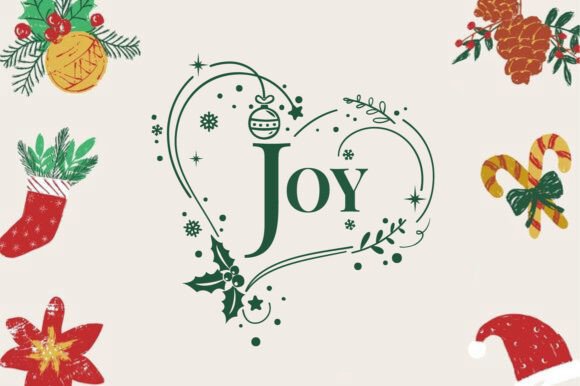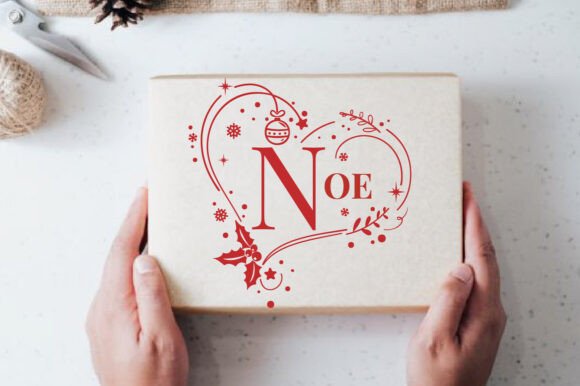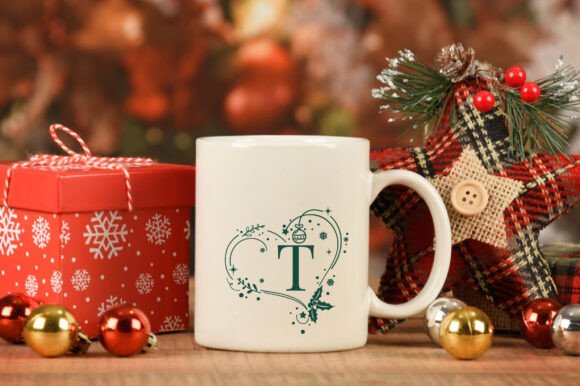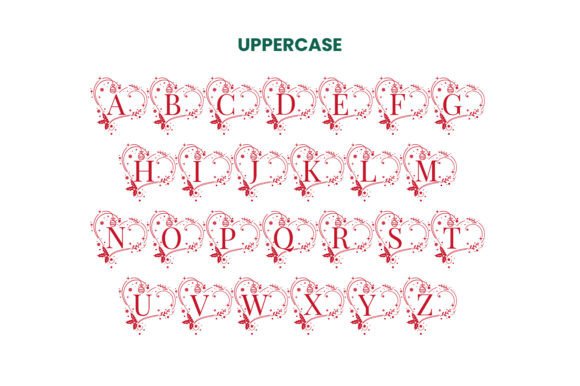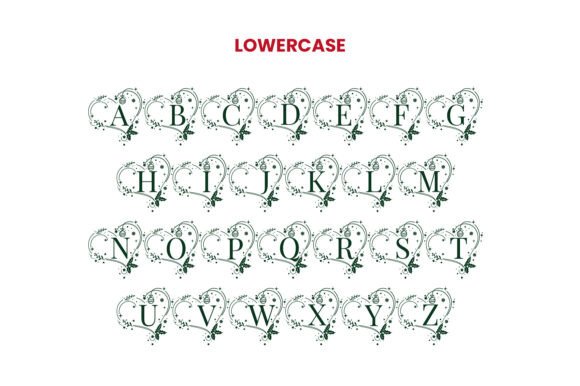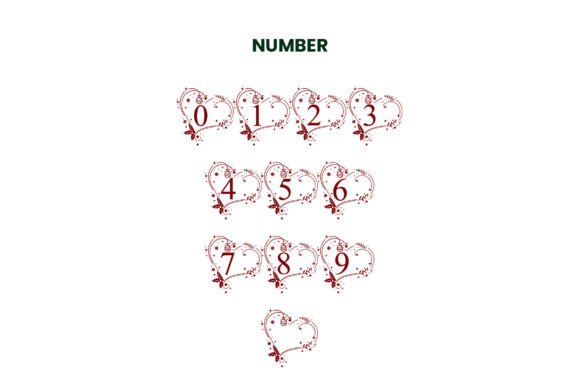
Introduction to Christmas in Love Font Font
Fonts play a crucial role in design, and the Christmas in Love Font font is a typeface that brings both character and versatility to any project. Whether you’re working on a branding project, a website, or a print design, the Christmas in Love Font font offers a unique style that can elevate your work.
Christmas in Love is a charming decorative font infused with festive spirit, perfect for adding a touch of magic to your holiday projects.
Its intricate heart-shaped designs are adorned with Christmas elements like snowflakes, holly, and ornaments, creating a whimsical and romantic feel Ideal for crafting personalized gifts, greeting cards, ornaments, and seasonal decor.
Key Features of Christmas in Love Font Font
Why Choose Christmas in Love Font Font?
The Christmas in Love Font font is more than just a typeface – it’s a design tool that helps you communicate your message with style and clarity. Its unique character set and versatile design make it suitable for a wide range of applications, from elegant invitations to bold headlines.
With its carefully crafted letterforms and balanced proportions, the Christmas in Love Font font ensures readability and visual appeal across all mediums.
What makes Christmas in Love Font font special?
The Christmas in Love Font font stands out with its unique design, exceptional readability, and versatility across various design applications.